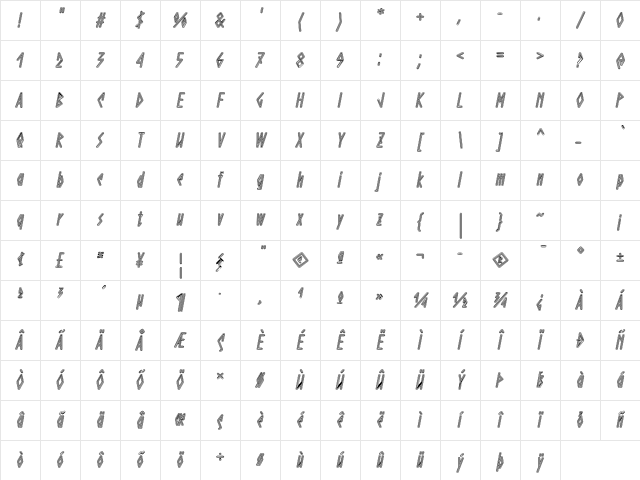
Baby Baby Color Green Slanted Free Font
Baby Baby Color Green Slanted
Style: Green Slanted
Foundry: Dharma Type
Designer: Ryoichi Tsunekawa
Design Context for Baby Baby Color
Baby Baby Color is a composed and adaptable typeface that performs quietly and consistently across a wide range of design contexts. The slanted form adds forward momentum and visual energy.
Pro Tip: Use Baby Baby Color for emphasis, pull quotes, and subheadings where its slanted energy can add rhythm to the layout.